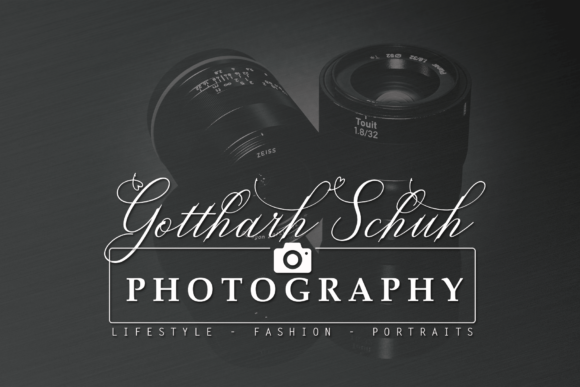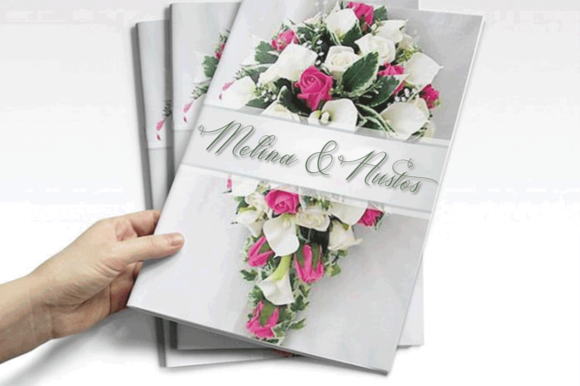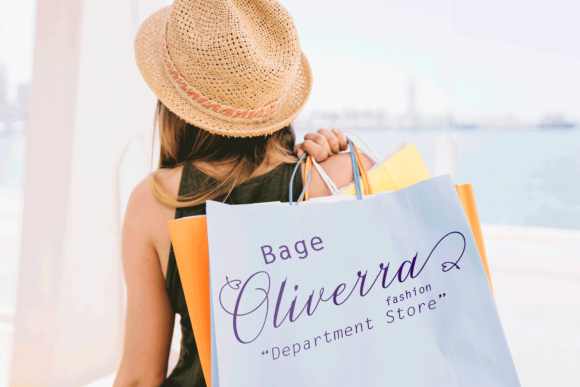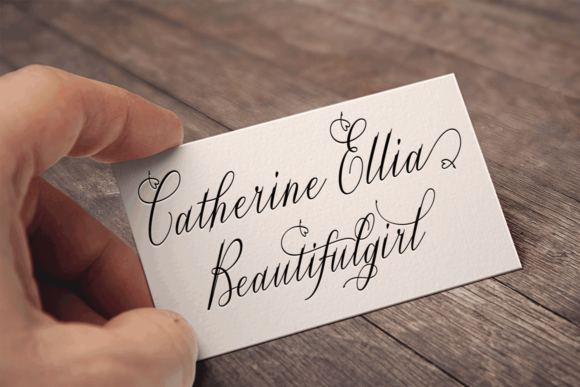
Despacito Font: The Ultimate Handwritten Font for Designers and Crafters
Are you a designer or crafter looking for a beautiful and elegant handwritten font to elevate your designs? Look no further than Despacito Font! This stunning font is perfect for adding a touch of sophistication and whimsy to a variety of design projects, from wedding invitations and greeting cards to logos and business cards.
What Makes Despacito Font So Special?
Despacito Font is an incredibly lovely and flowing handwritten font that is sure to capture the attention of your audience. Its beautiful, cursive script features a varying baseline, smooth lines, gorgeous glyphs, and stunning alternates, making it perfect for designs that require a personal and elegant touch.
One of the standout features of Despacito Font is its PUA (Private Use Area) encoding. This means that you can access all of the font’s glyphs and swashes with ease, giving you complete creative control over your designs. Whether you’re looking to add a romantic flourish to a wedding invitation or a playful touch to a greeting card, Despacito Font has everything you need to create stunning designs.
Despacito Font is incredibly versatile and can be used for a wide range of design projects. Here are just a few ideas to get you started:
- Wedding invitations and stationery: Add a touch of romance and elegance to your wedding designs with Despacito Font.
- Greeting cards and thank you cards: Create beautiful and heartfelt cards for any occasion with this gorgeous font.
- Logos and branding: Use Despacito Font to create a unique and memorable logo for your business or brand.
- Business cards and stationery: Elevate your business designs with the elegant and sophisticated look of Despacito Font.
- Quotes and posters: Create stunning quote posters and social media graphics with this beautiful font.
Why Designers and Crafters Love Despacito Font
Designers and crafters love Despacito Font for its unique combination of elegance and playfulness. Here are just a few reasons why:
- Unique and eye-catching: Despacito Font is a one-of-a-kind font that is sure to capture the attention of your audience.
- Elegant and sophisticated: This font features a beautiful, cursive script that adds a touch of sophistication to any design.
- Easy to use: With PUA encoding, you can access all of the font’s glyphs and swashes with ease, making it simple to create stunning designs.
- Versatile: Despacito Font can be used for a wide range of design projects, from wedding invitations to logos and branding.
Tips for Using Despacito Font in Your Designs
Here are a few tips for using Despacito Font in your designs:
- Experiment with different sizes and colors: Despacito Font looks beautiful in a variety of sizes and colors, so don’t be afraid to experiment and find the perfect combination for your design.
- Use it with other fonts: Despacito Font pairs beautifully with other fonts, so try combining it with a bold font for headings or a clean font for body text.
- Add some flair with swashes: With PUA encoding, you can access a range of beautiful swashes and glyphs to add a touch of elegance to your designs.
Despacito Font is a stunning handwritten font that is perfect for designers and crafters looking to add a touch of elegance and whimsy to their designs. With its PUA encoding, gorgeous glyphs, and smooth lines, this font is sure to capture the attention of your audience. Whether you’re creating wedding invitations, greeting cards, logos, or business cards, Despacito Font is the perfect choice. So why wait? Download Despacito Font today and start creating stunning designs that will leave a lasting impression!